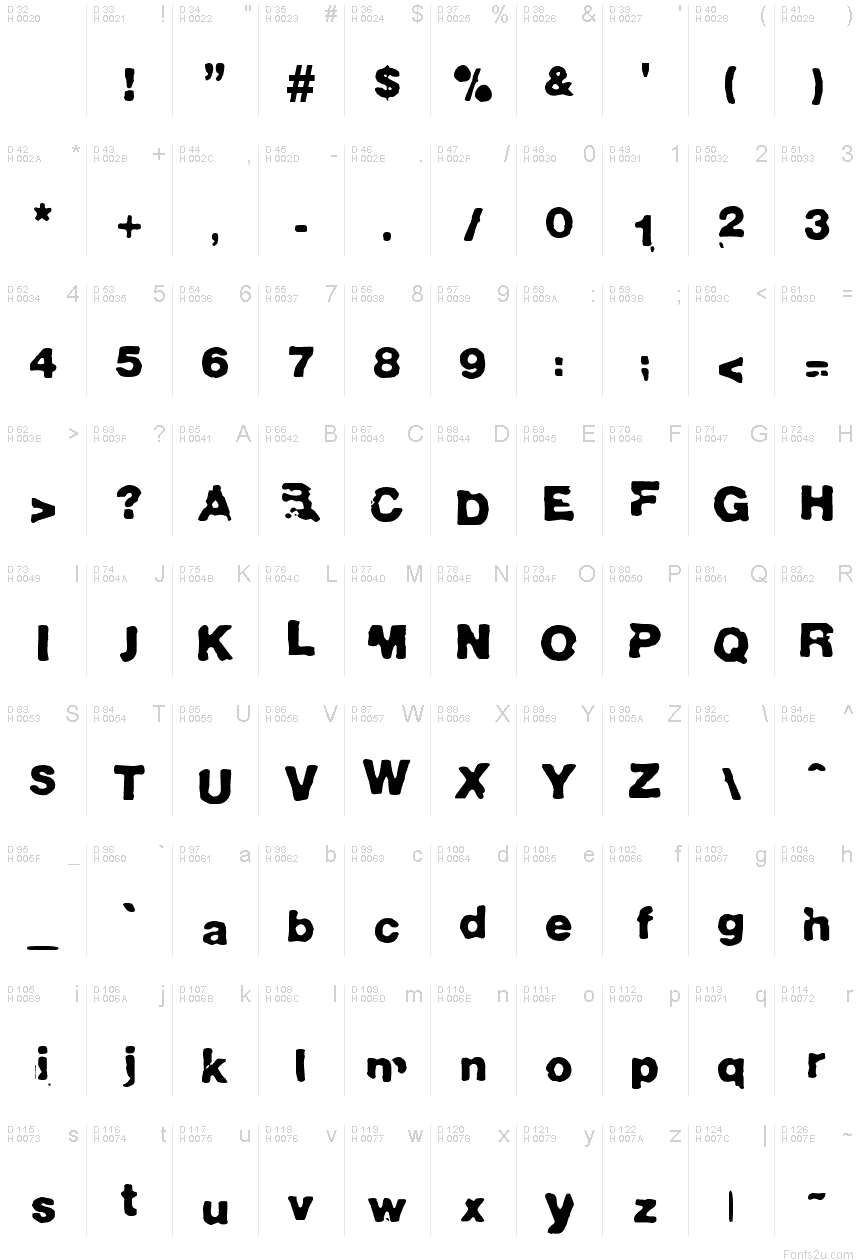
BlueNorma
BlueNorma font by Les Rats Bleus - Blueribbon is a free distorted font that looks like it’s been poured onto the page and left to ooze. Thick, inky blobs swell and collapse into each other, giving every word a warped, half-melted presence that feels loud, messy, and wonderfully wrong. The spacing is tight and clotted, so text forms dense, organic shapes that grab attention from across the room.
This free font shines on horror posters, underground gig flyers, experimental album covers, zines, game titles, and Halloween branding where you want letters to feel more like artwork than text. Using BlueNorma at large sizes lets its gloopy contours really show; pair it with a tiny, clean grotesque sans for body copy so the chaos stays in the headline where it belongs.